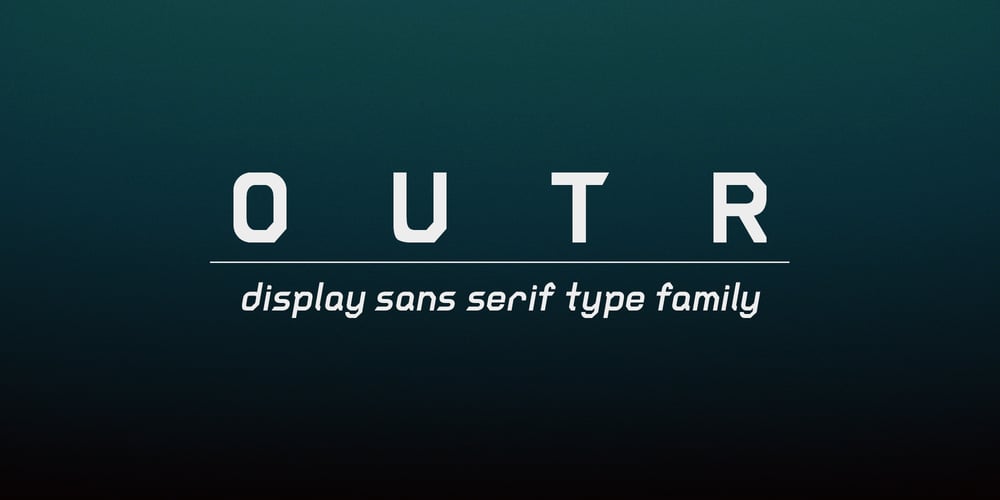
Outr Font Family was designed by Taka Ikari and published by Outerend. Outr contains 6 styles and family package options. The fonts “Outr” were created with the concept of typography in motion. These display fonts look unique as movie titles, TV show logos, game titles, and many other products, especially with edgy and tech designs on screens. These are more suitable for and work very well in 2D and 3D motion graphics.